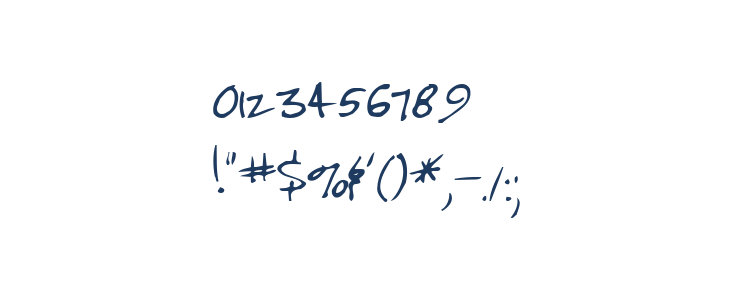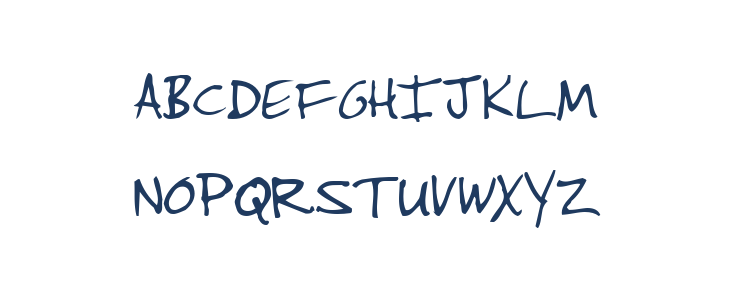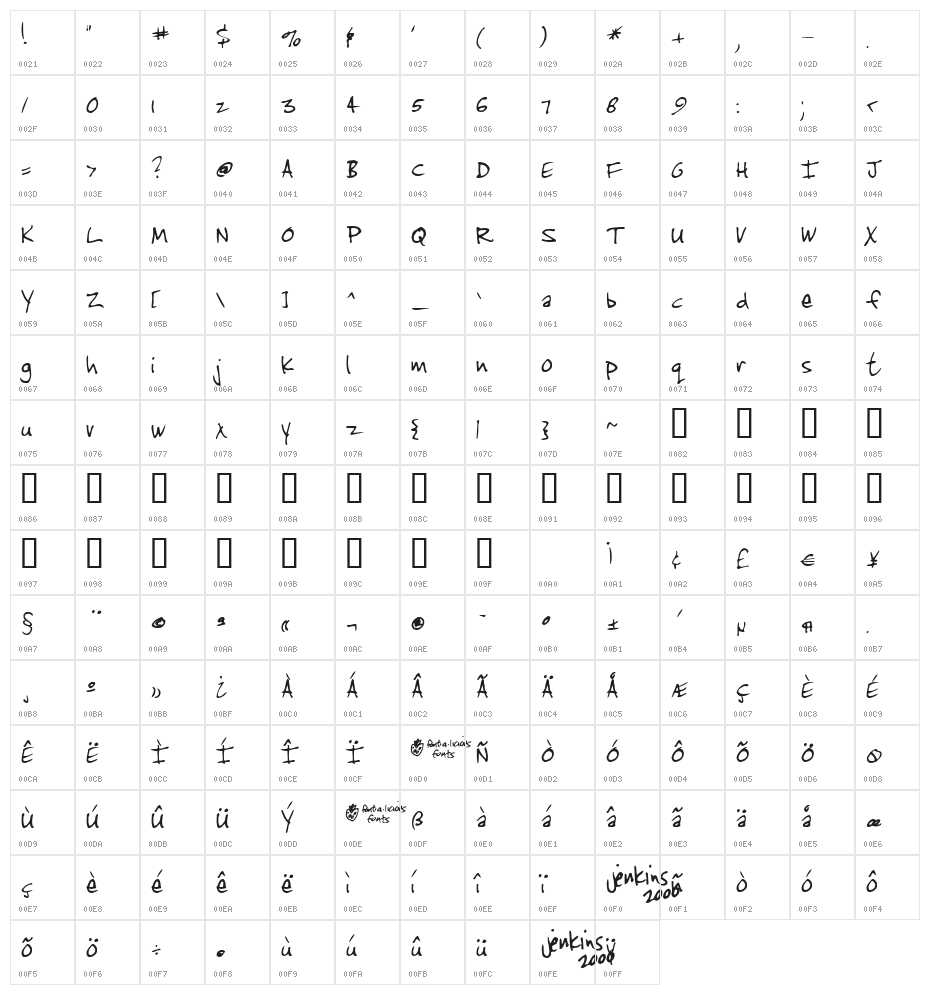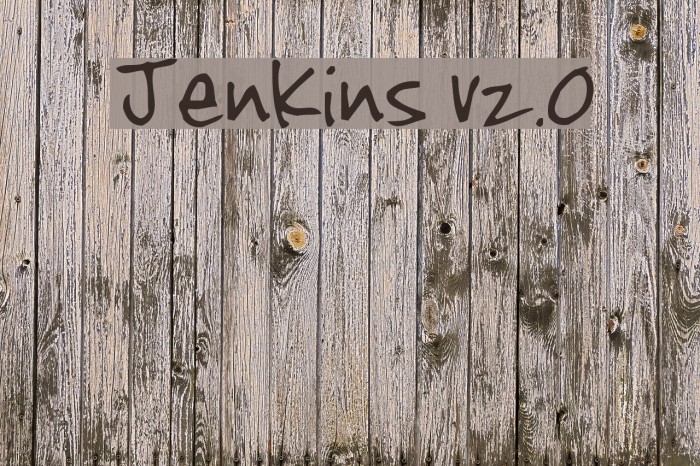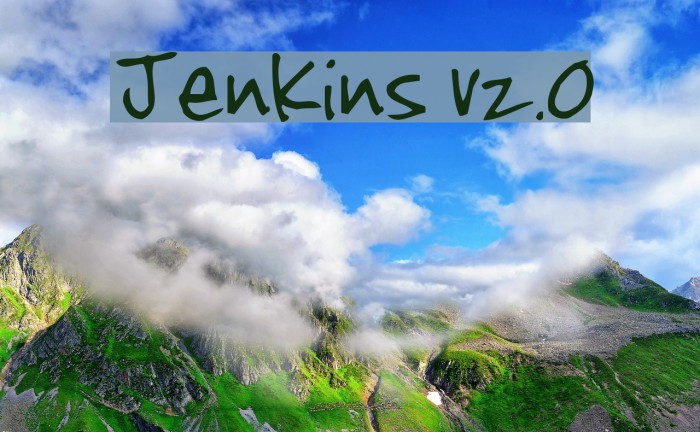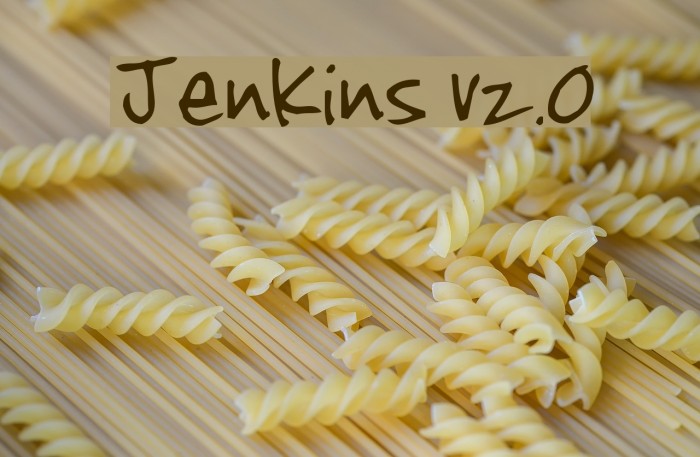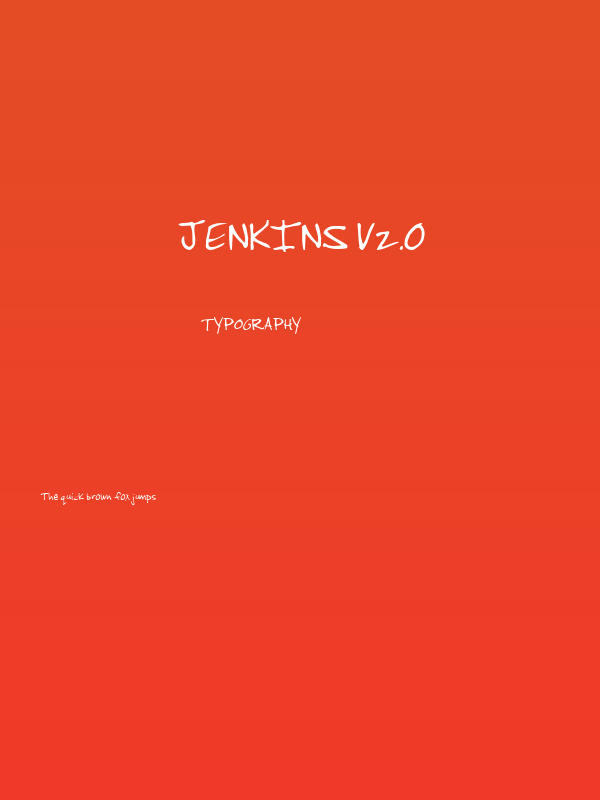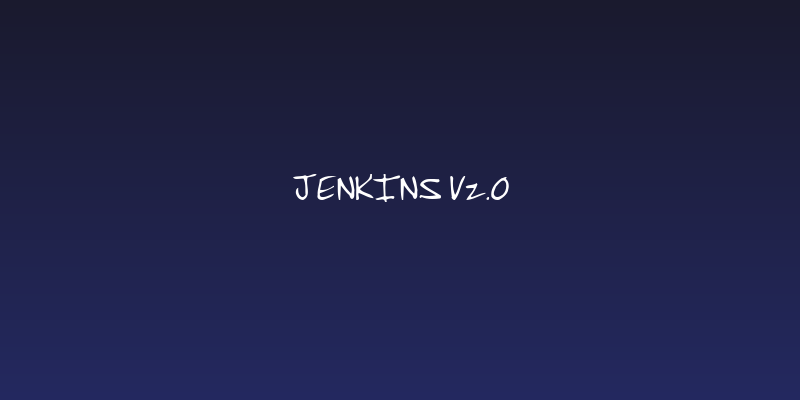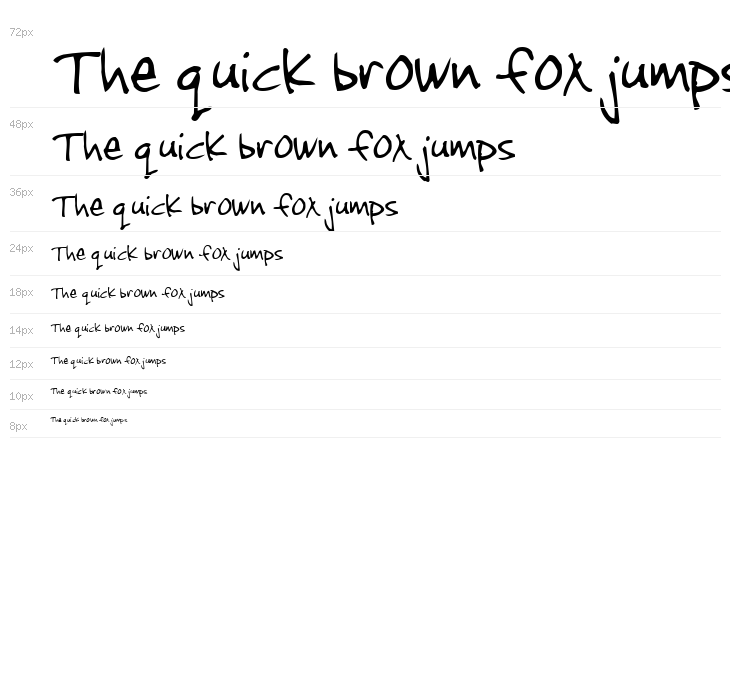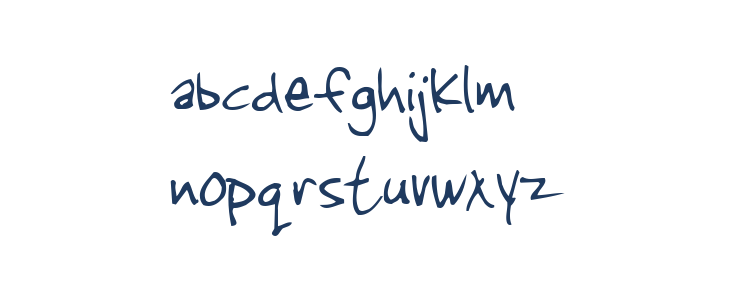
Jenkins v2.0 Font
Jenkins v2.0 Description
This font exhibits a lively and informal handwritten style, characterized by its playful and slightly irregular letterforms. The strokes are fluid and dynamic, giving it a personal and approachable feel. The uppercase and lowercase letters maintain a consistent style, with a slight slant that adds to its casual appearance. The numerals and special characters are crafted with the same energetic flair, ensuring a cohesive look across all elements. This font is ideal for projects that require a touch of personality and warmth, such as invitations, greeting cards, or creative branding.
| Proposed Projects | Ideal for invitations, greeting cards, creative branding, and personal projects. |